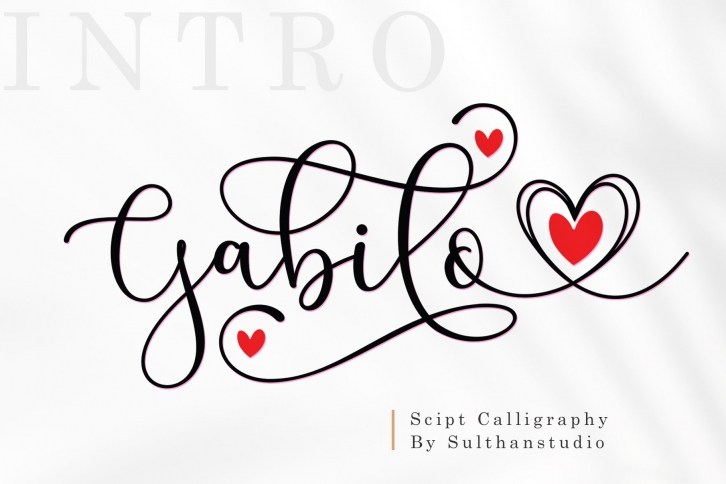
Gabilo Script FONT Download
Gabilo Script font with a smooth, handwritten style. Gabilo script is perfect for branding projects, homeware design, product packaging, use in business cards, invitation cards, etc. Simply as a stylish text overlay onto a background image or anything that requires a touch of elegance.
also comes with heart swashes that can be spliced.